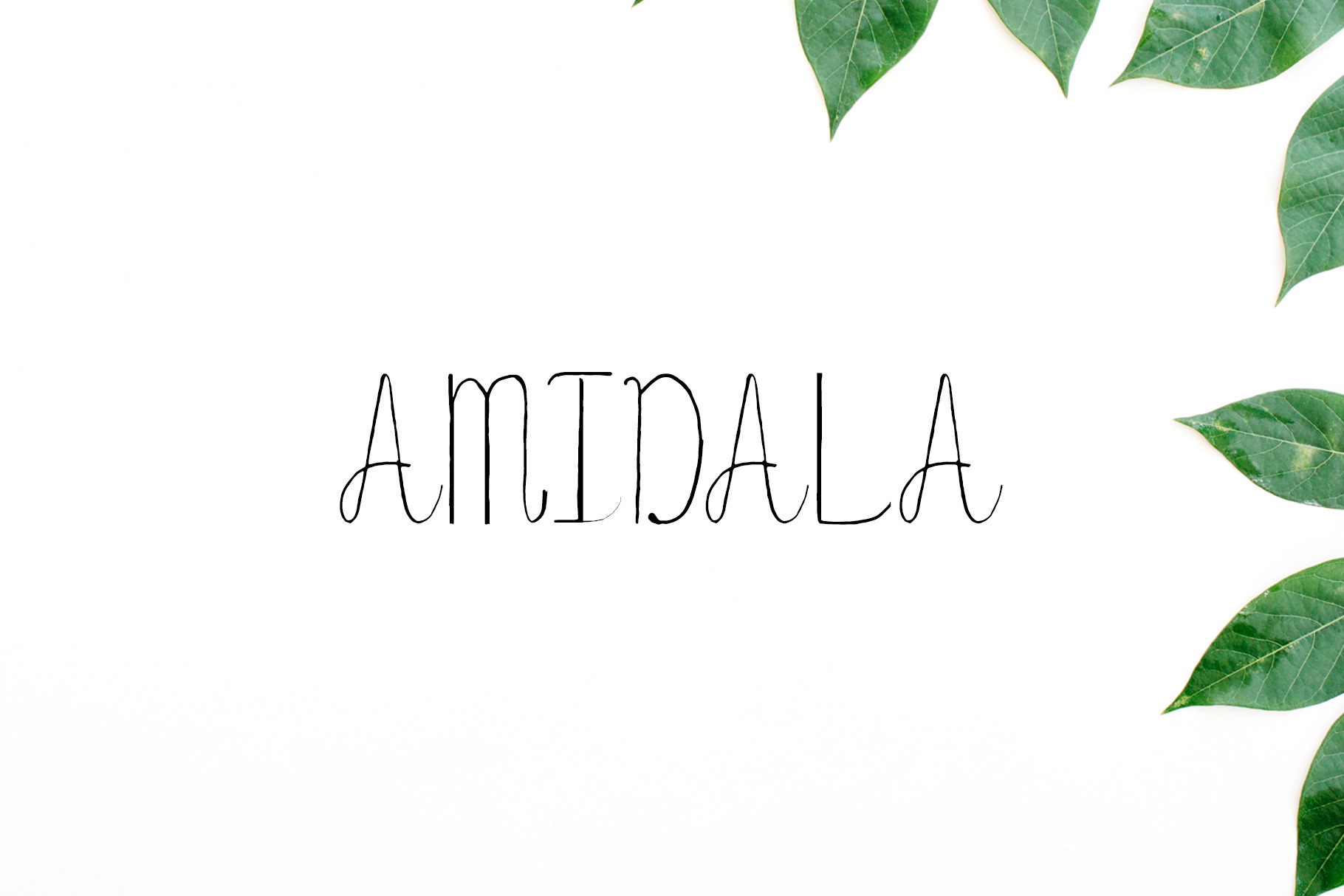
Amidala Script Font
Amidala is a cool handwriting script font containing uppercase, lowercase characters, numerals, punctuation and alternatives. This font can always be the right choice for a lot of creative work like handwritten quotes, logo projects, signature, album cover, merchandise, social media posts, displays, headers, invitations, save the dates, weddings, titles, product packaging, etc.
Amidala Font Features:
- Uppercase Multilingual Letters
- Lowercase Multilingual Letters
- Non English Characters ( Latin Extended A )